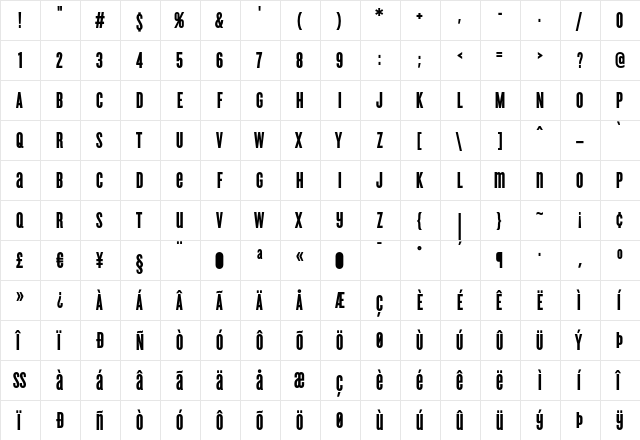
CycloneLayers Regular
Design Context for CycloneLayers Typeface
CycloneLayers is a composed and adaptable typeface that performs quietly and consistently across a wide range of design contexts.